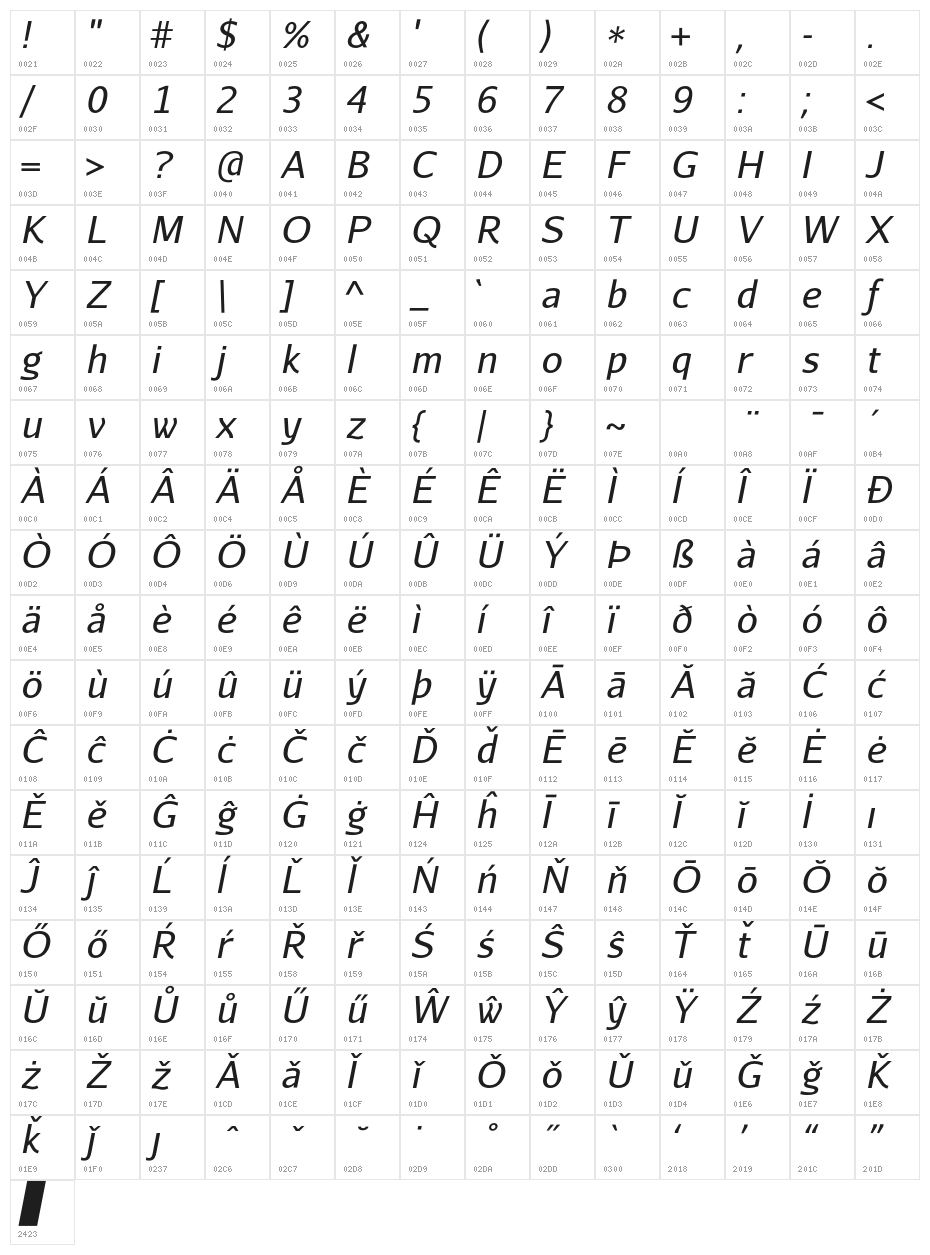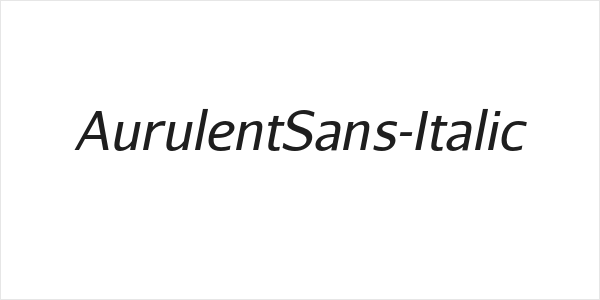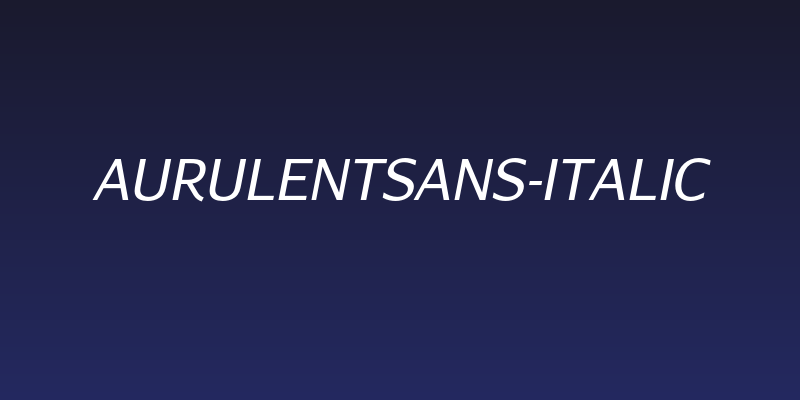
AurulentSans-Italic Font
AurulentSans-Italic Description
This font presents a sleek and modern sans-serif style with a slight italic slant, giving it a dynamic and elegant appearance. The characters are well-proportioned with a consistent stroke width, providing a clean and professional look. The uppercase letters are bold and assertive, while the lowercase letters maintain readability with a subtle curvature. The numerals are clear and distinct, ensuring legibility in various contexts. Special characters are designed with precision, complementing the overall aesthetic. The font's design is versatile, suitable for both digital and print media.
| Proposed Projects | Ideal for branding, advertising, web design, and editorial projects where a contemporary and elegant typeface is desired. |